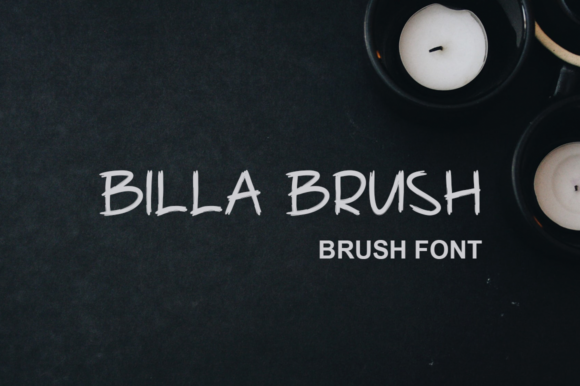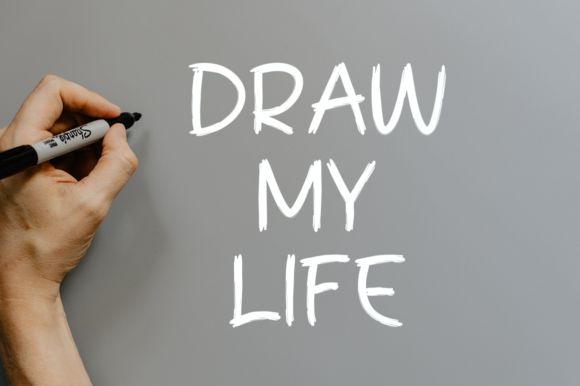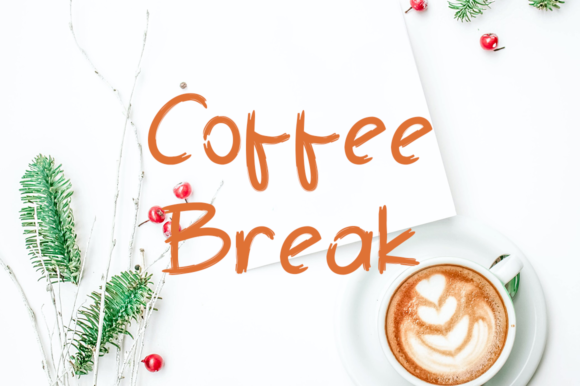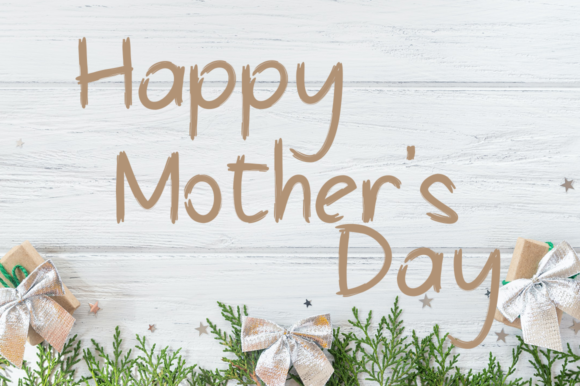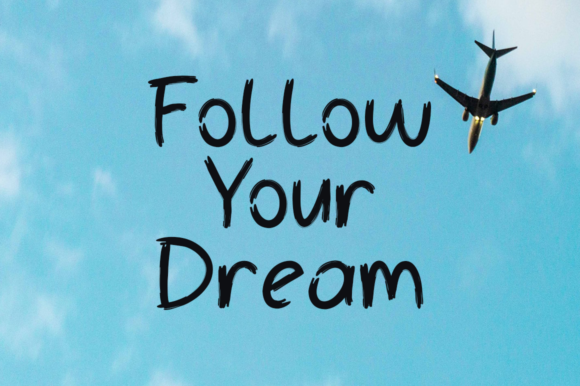
Billa Brush Font
About Billa Brush Font
Billa Brush is a thin and clean handwritten font. It can easily be matched to an incredibly large set of projects, so add it to your creative ideas and notice how it makes them stand out!